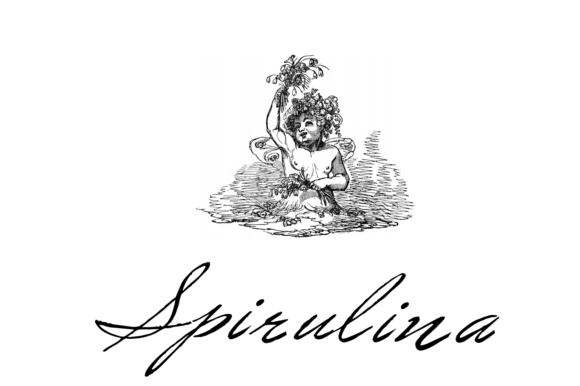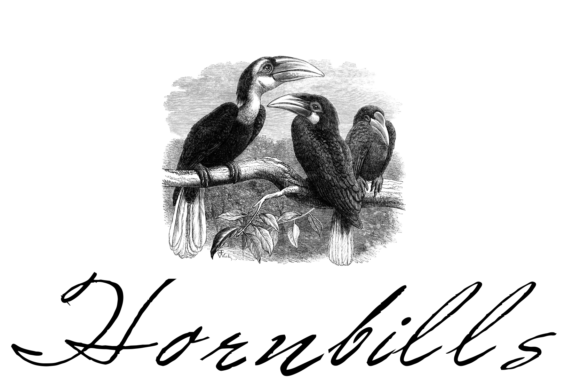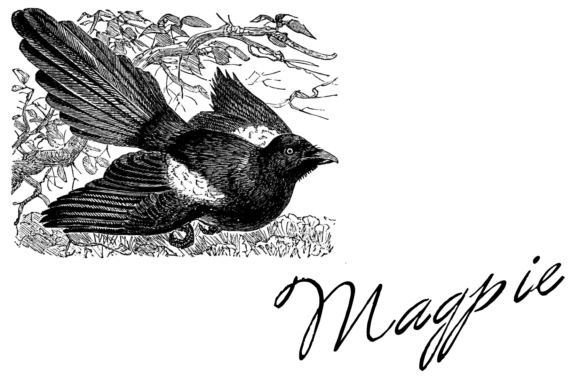
HomeScript FontsSpirulina Font Script Fonts Spirulina Font FacebookXPinterestWhatsApp Spirulina Font Poster 2 Spirulina Font Poster 3 About Spirulina Font The Spirulina is a script font with a old fashion writing style. DOWNLOAD NOW People also explored Wonderfull Font Chandele Forbidden Forest Font Butterfly Font Tropicana Font Hello Dina Font Komersie Font Alerta Font Miniver Pro 332 0 TagsSpirulina Font Previous articleKurrent Kupferstich Thin FontNext articleMeuntari Font LEAVE A REPLY Cancel reply Comment: Please enter your comment! Name:* Please enter your name here Email:* You have entered an incorrect email address! Please enter your email address here Website: Save my name, email, and website in this browser for the next time I comment. Personal Use Free Miracles Personal Use Free Read more about this font Twisty Girlz Personal Use Free Read more about this font Super Caramel Font Personal Use Free Read more about this font Mullia Personal Use Free Read more about this font BLOG To increase your work productivity, choose the most readable fonts. In today's fast-paced work environment, where digital communication and information consumption are integral to our daily routines, the choice of fonts can significantly impact... 5 Fonts That Will Dominate Design Trends in 2026 Best Fonts for YouTube Videos: Make Your Thumbnails Stand Out How to Cut Any Font on Cricut: Convert a Font to SVG (Free)